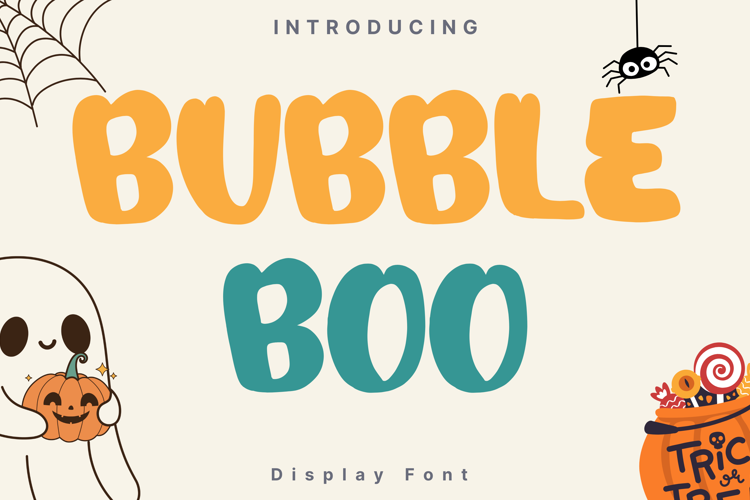
Bubble Boo Style
BubbleBoo
Bubble Boo is a playful, bold display font with soft rounded edges and a slightly spooky vibe. Its thick and bubbly letterforms make it perfect for Halloween themes, party posters, children’s crafts, and fun seasonal branding. The font’s whimsical style brings a mix of cuteness and a hint of eeriness, making it versatile for both lighthearted and festive Halloween projects.